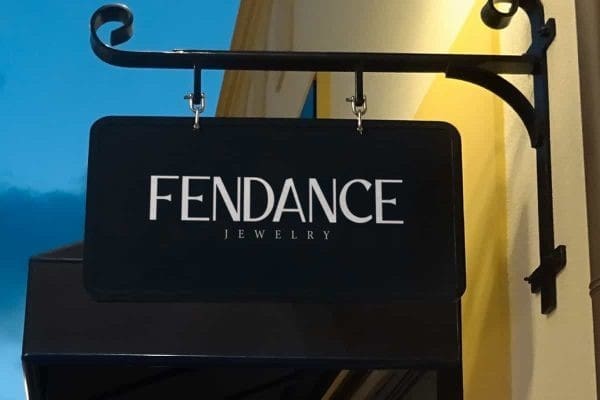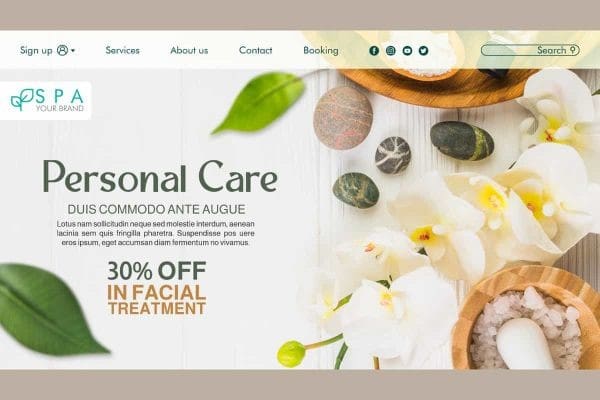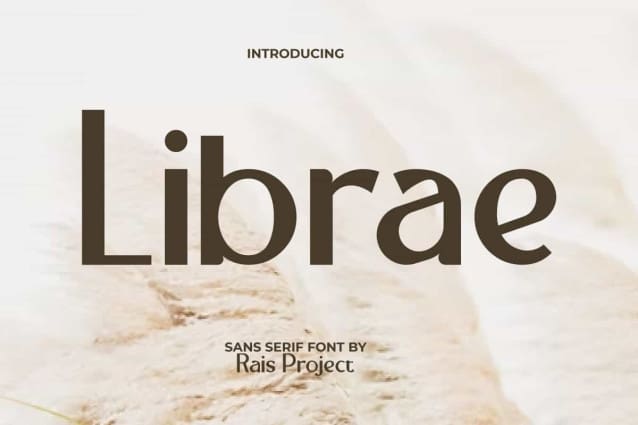
Librae Font
Librae Font is a stylish casual modern sans serif font with simple look. This font has a style that will impresses anyone who sees it with a beautiful charm. It will be good for any designs, such as advertisement, brand image, business card, cover, custom design, invitation, label, menu, poster, product packaging, quote, signage, web, and more!
Librae Font includes a full set of Uppercase and Lowercase Letters, Numerals, and large range of Punctuation. This modern font will be suitable for various industries, such as accessories, beauty product, cafe, event or wedding organizer, fashion, home furniture, movie, printing, publishing, etc.